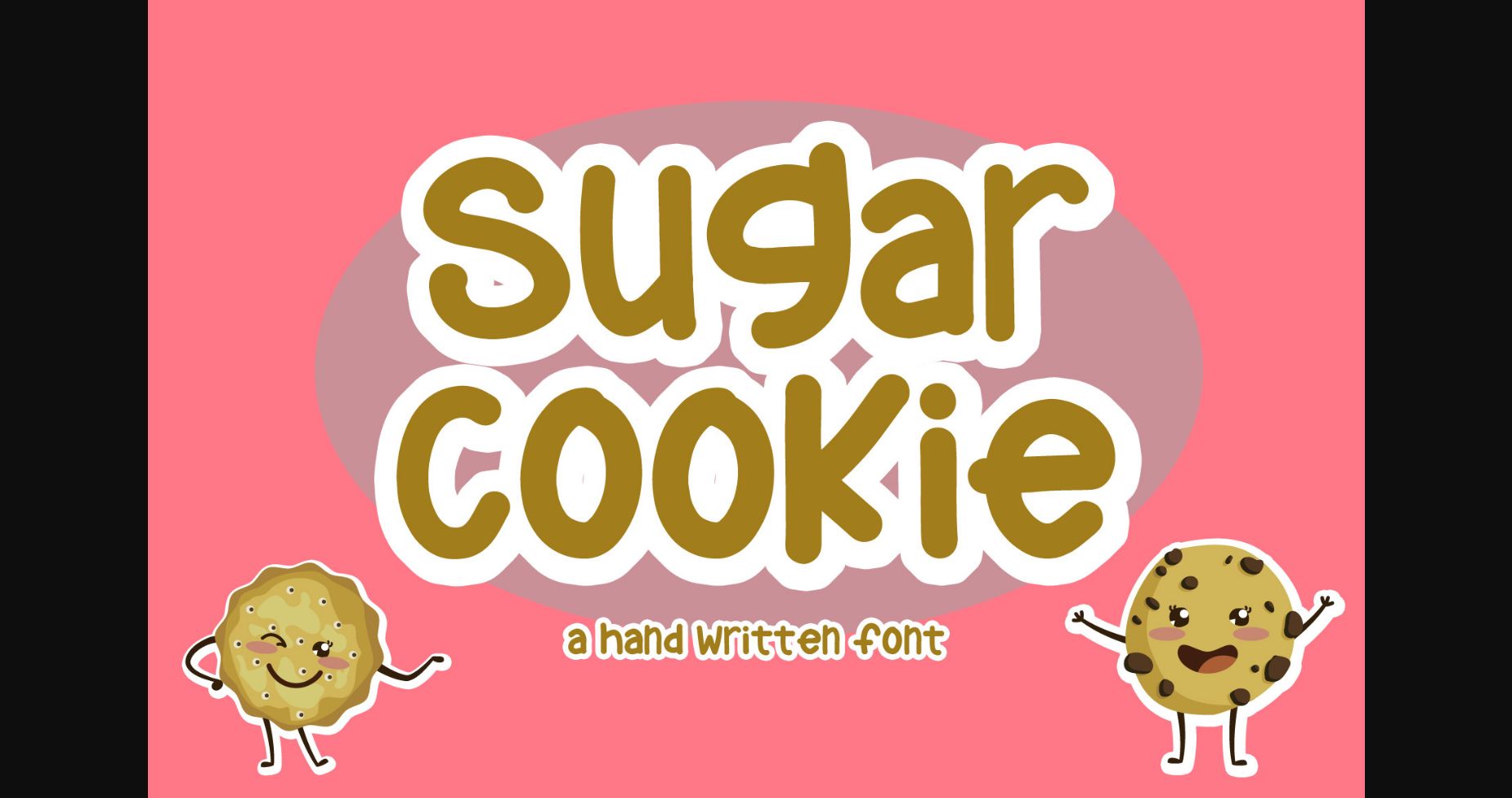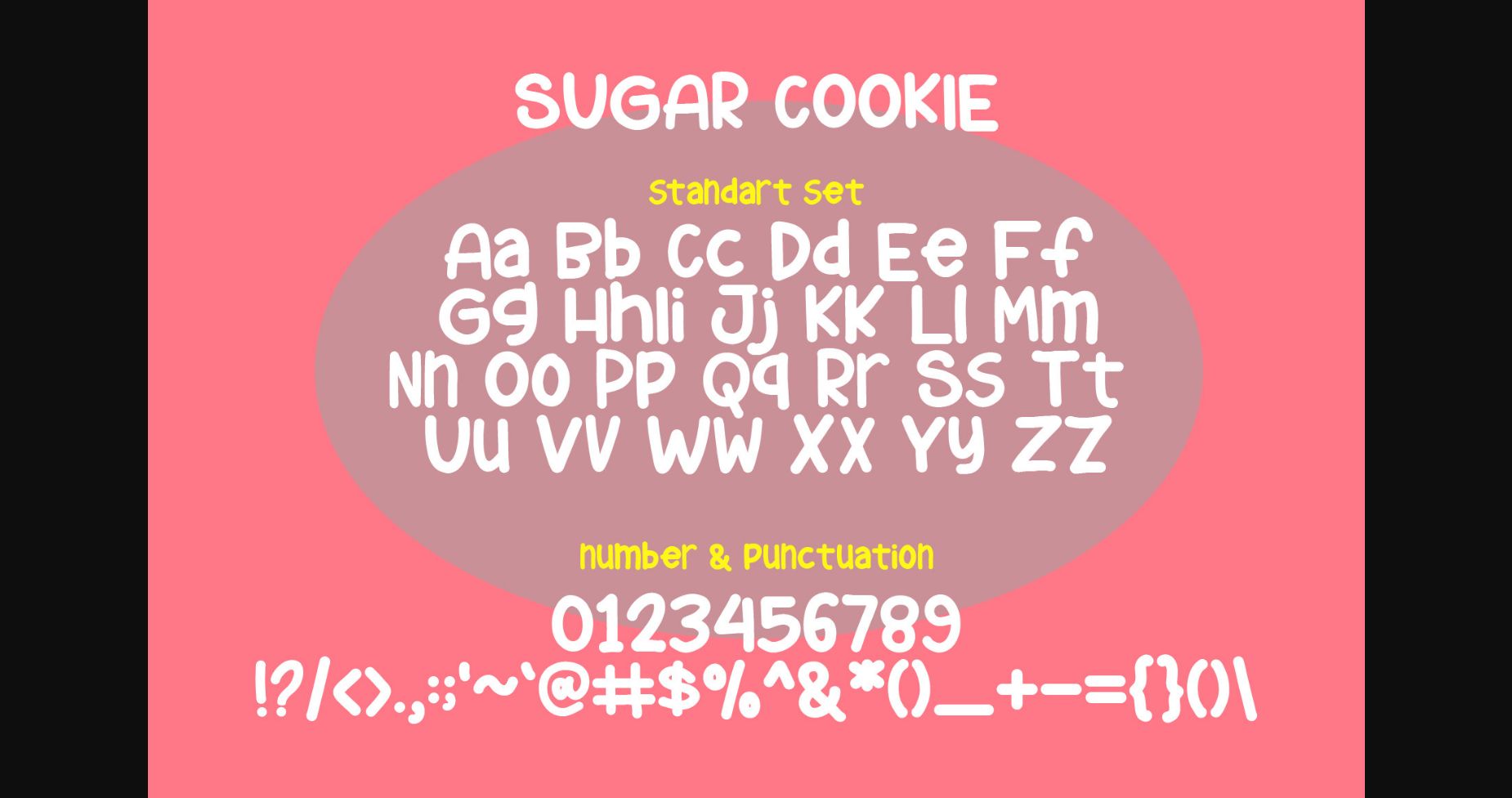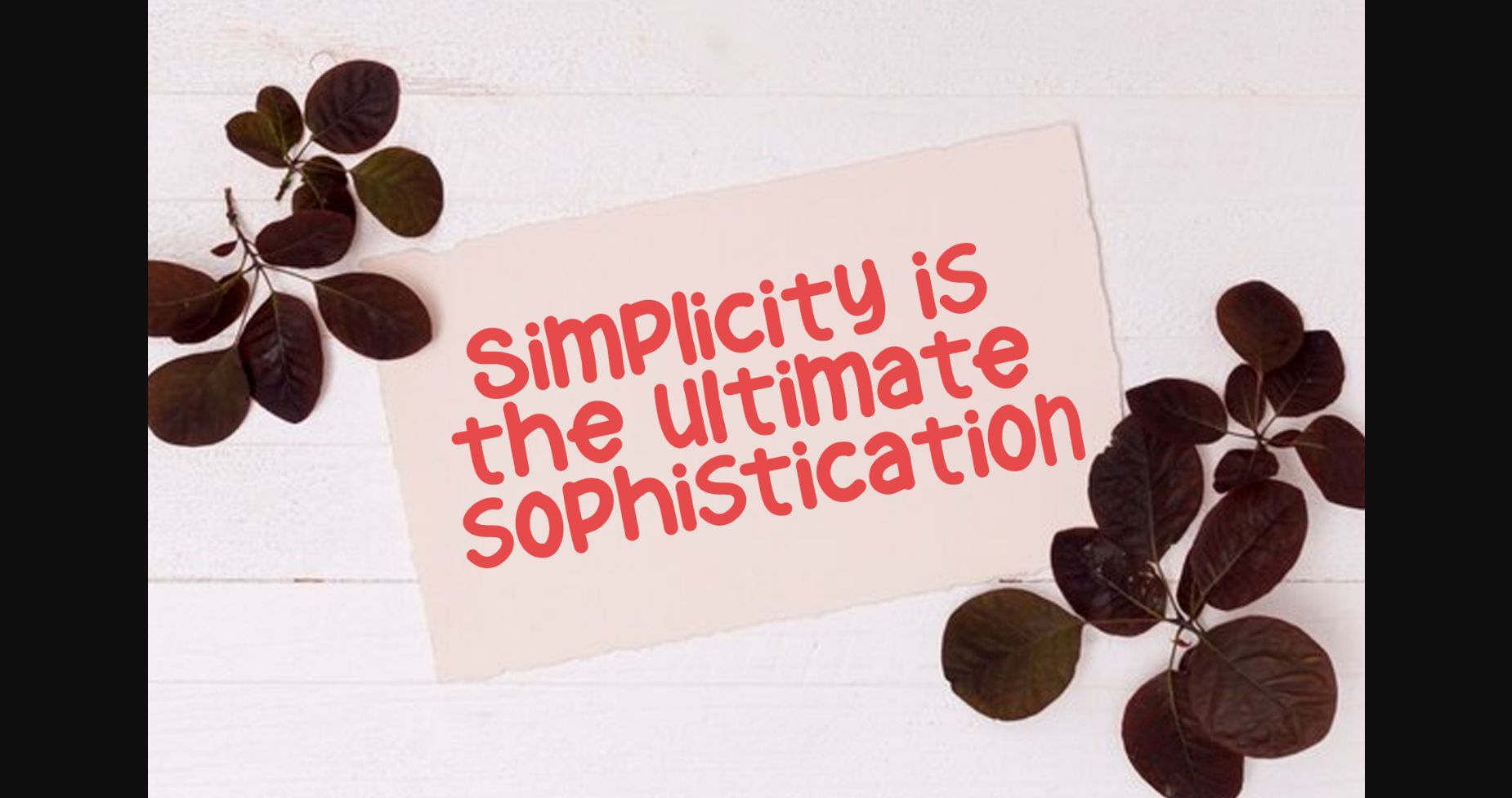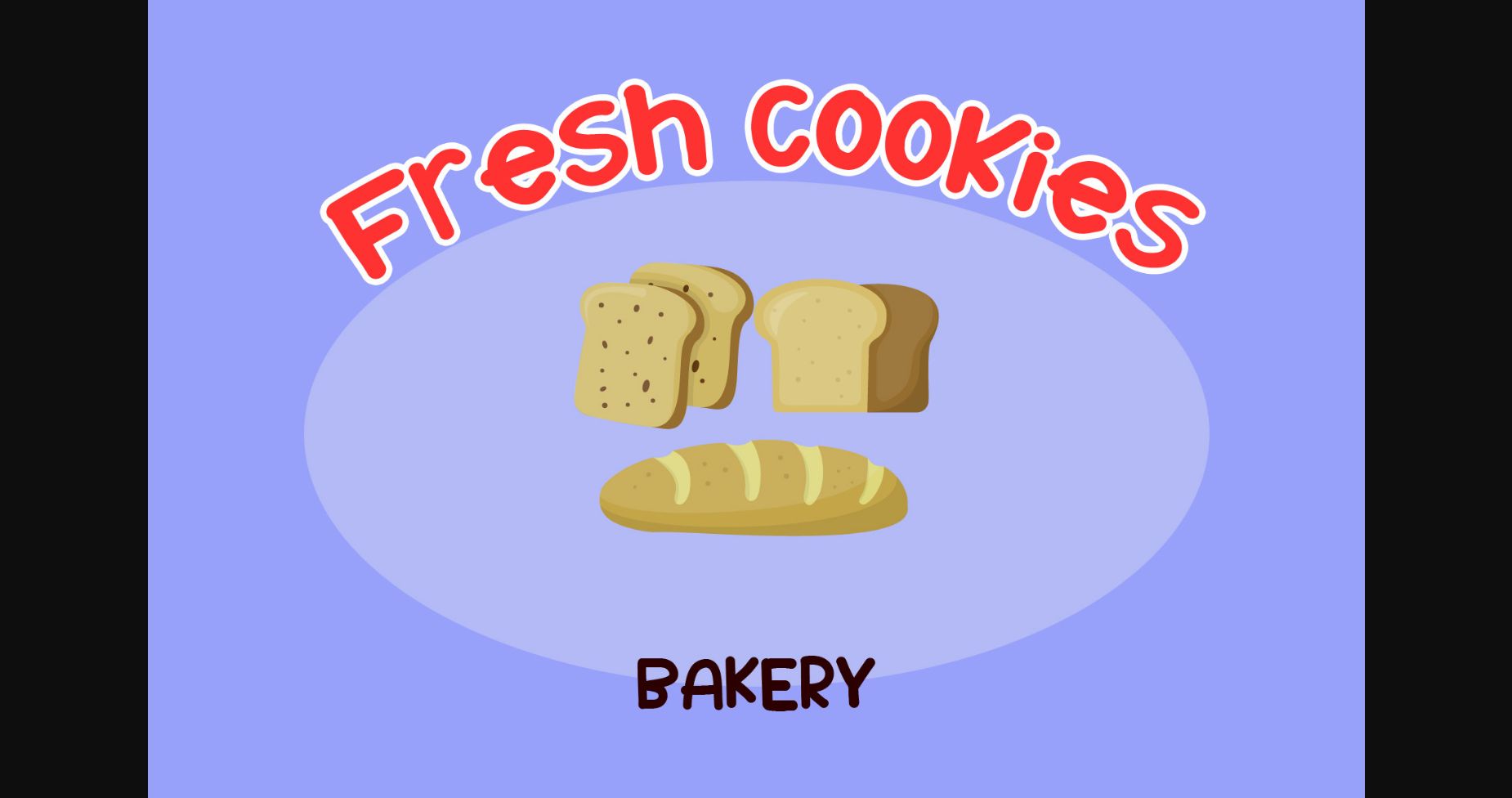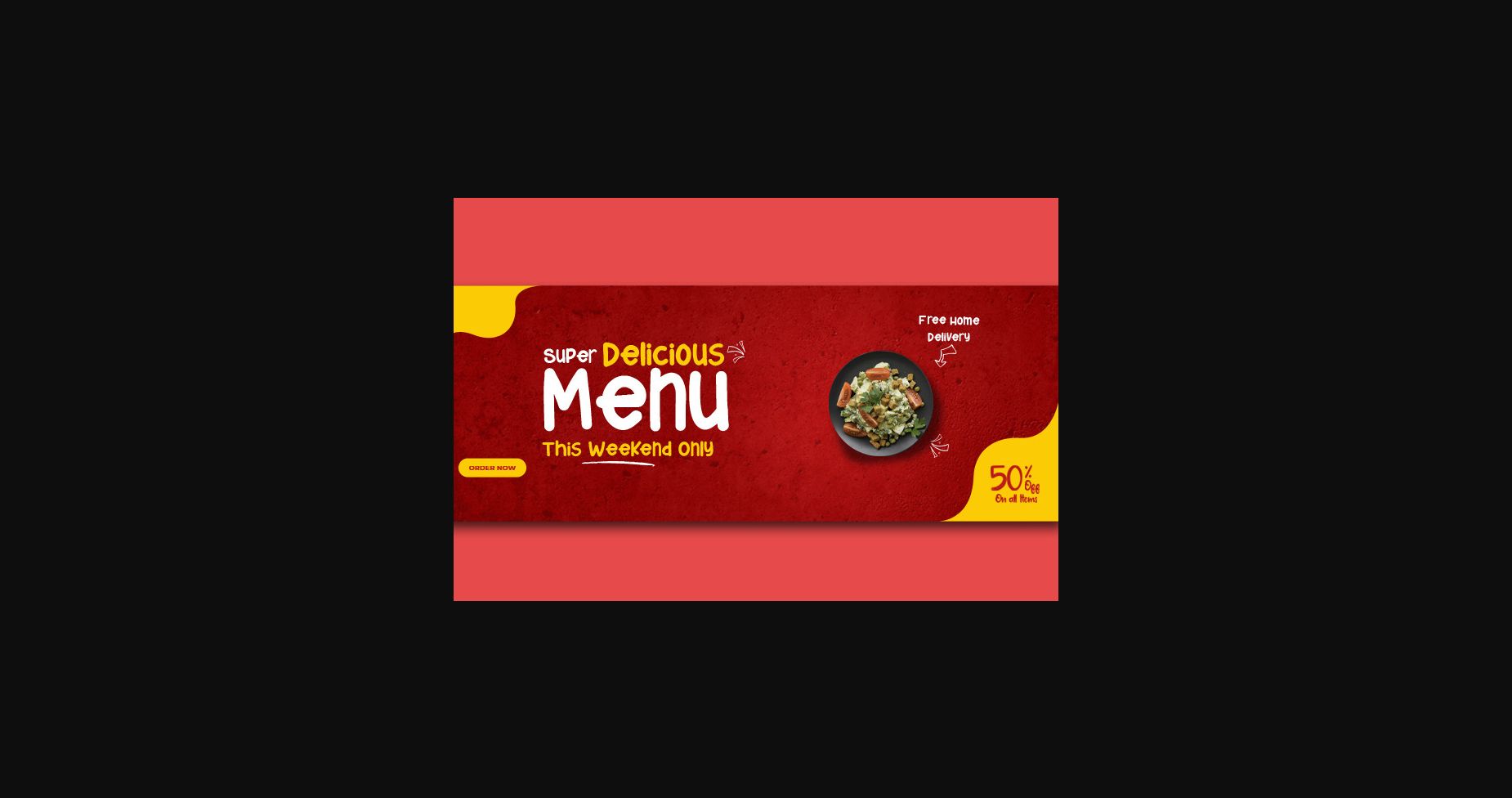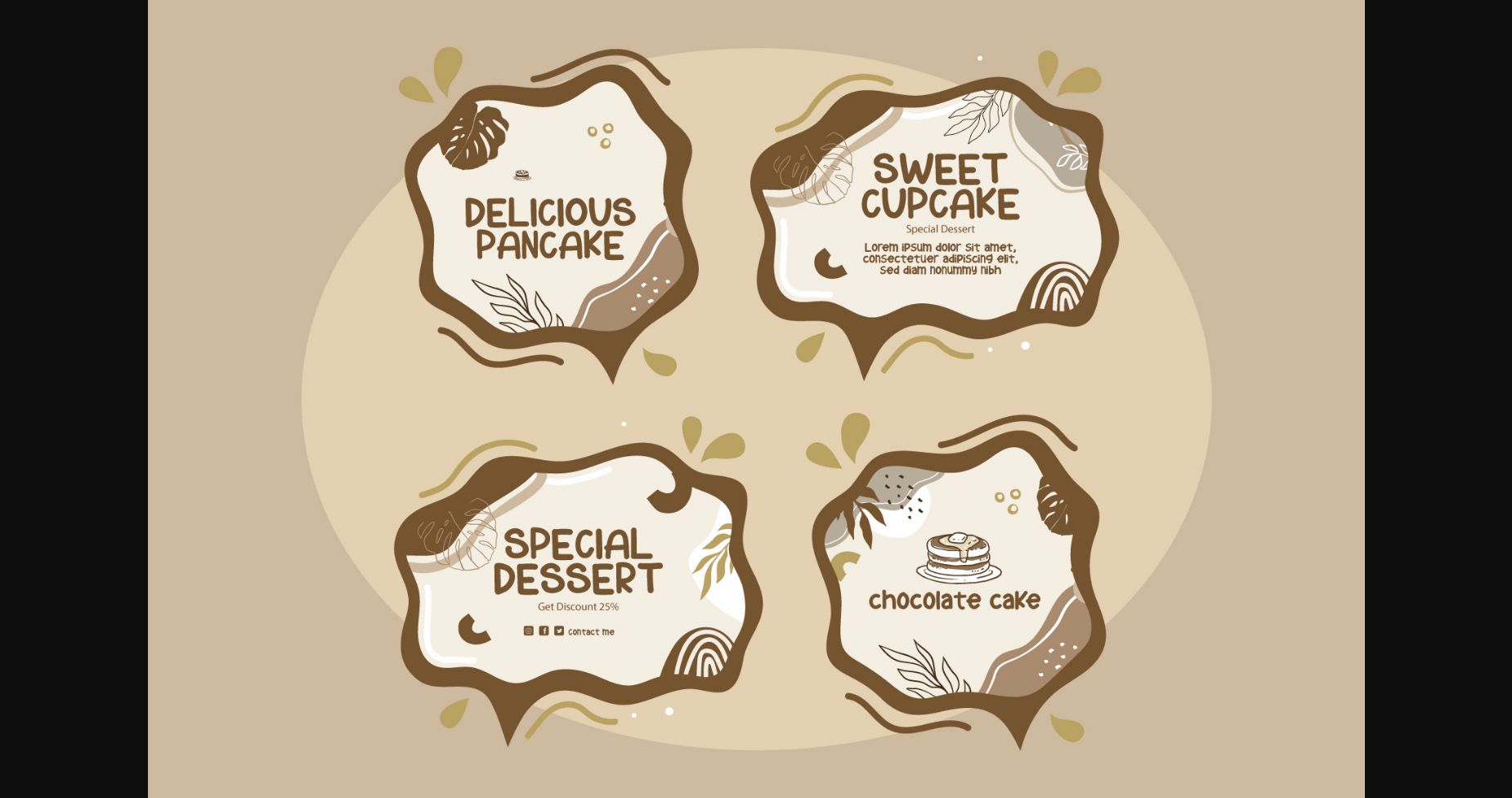
About Sugar Cookie Font
Sugar Cookies is a sans serif font with a cute and quirky shape.
This font is suitable for use in several of your design projects such as posters, banner, birthday cards, t-shirt designs, mugs, and tote bags, and can be used for various handmade creations.